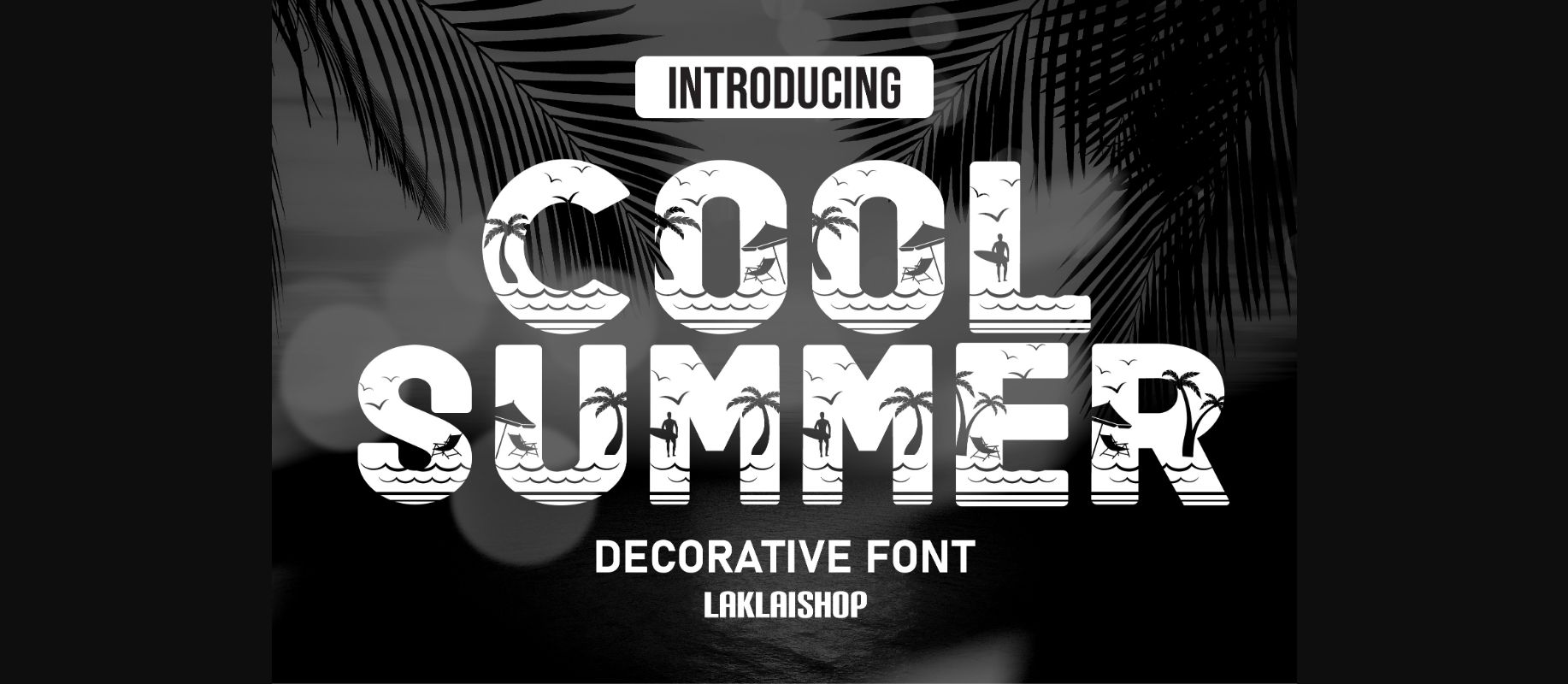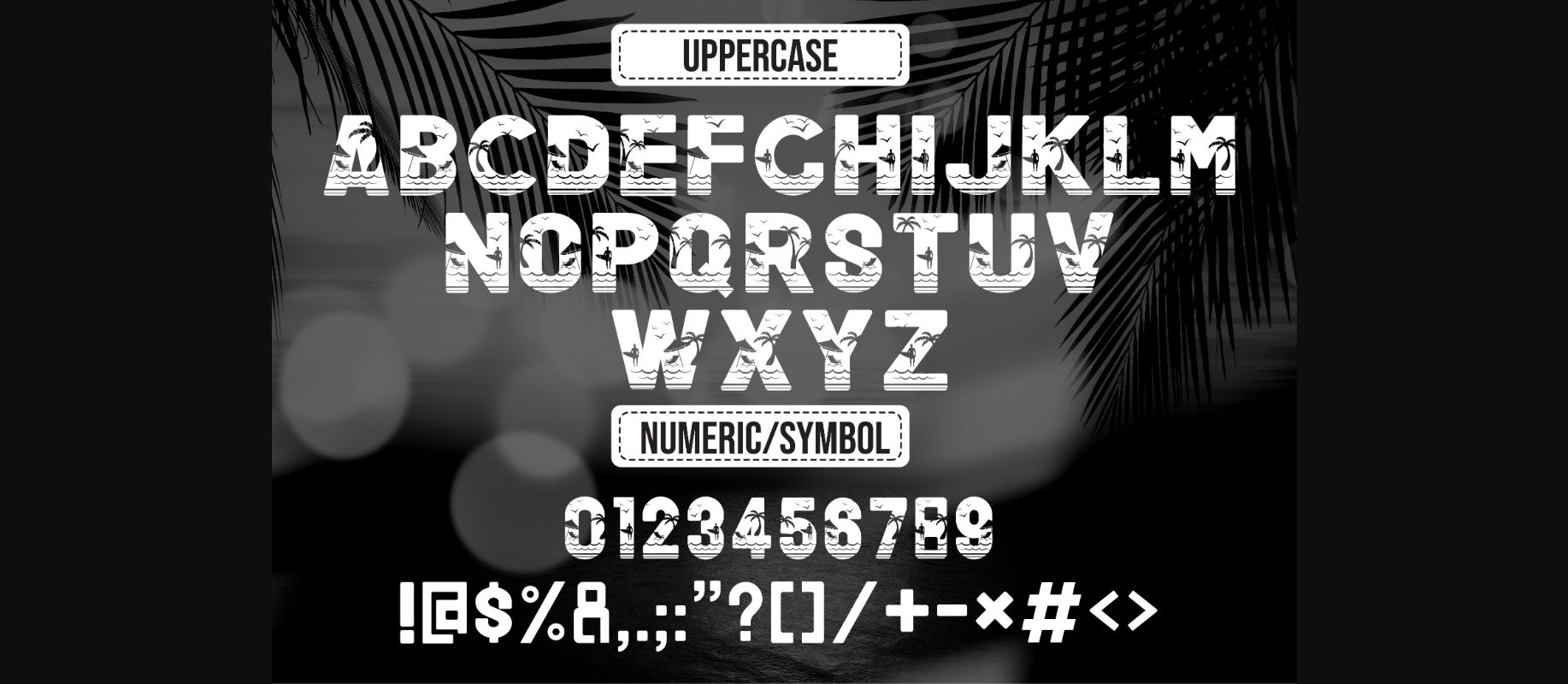
HomeDecorative FontsCool Summer Font Decorative Fonts Cool Summer Font FacebookXPinterestWhatsApp 1 of 4 ... Cool Summer Font Poster 2... Cool Summer Font Poster 3... Cool Summer Font Poster 4... About Cool Summer Font Cool Summer is a thick lettered and incredibly unique decorative font. It can be used for a large variety of projects and it will definitely brighten up your crafty ideas. DOWNLOAD NOW People also explored Swimming Font Directed Font Wincent Outline Extra Light Font Pretty Berelly Font Michelle Script Starlight Font Merry Christmas Font Brilliant Student Font Calinastiya Font 297 0 TagsCool Summer Font Previous articleWood Sticks FontNext articleFox Terrible Font LEAVE A REPLY Cancel reply Comment: Please enter your comment! Name:* Please enter your name here Email:* You have entered an incorrect email address! Please enter your email address here Website: Save my name, email, and website in this browser for the next time I comment. Personal Use Free Welcome Creative Personal Use Free Read more about this font Bollado Personal Use Free Read more about this font Casual Personal Use Free Read more about this font Rhetorical Personal Use Free Read more about this font BLOG Using Fonts in Digital Marketing: Tips to Strengthen Your Brand Identity In the realm of digital marketing, every visual element plays a crucial role in shaping a brand's identity, and fonts are no exception. The... Best Fonts for YouTube Videos: Make Your Thumbnails Stand Out How to Cut Any Font on Cricut: Convert a Font to SVG (Free) Where to Buy American Fonts Online in 2024